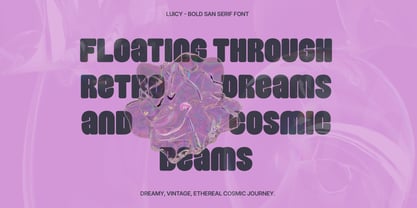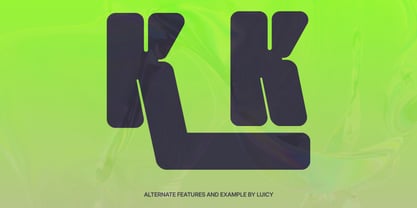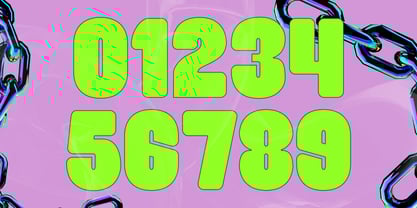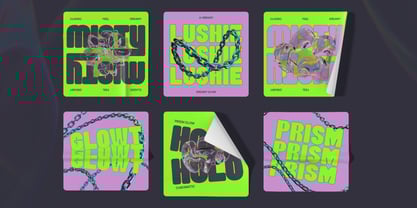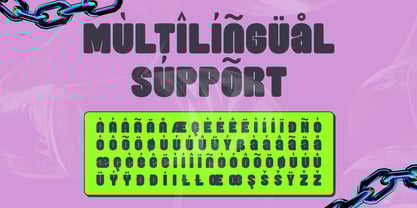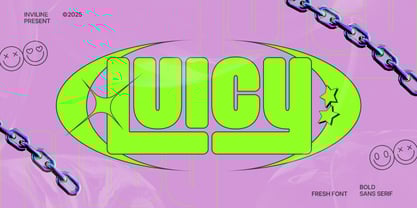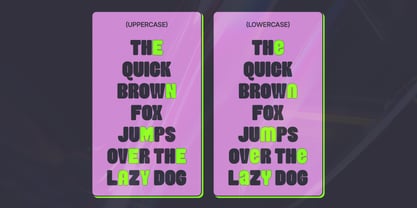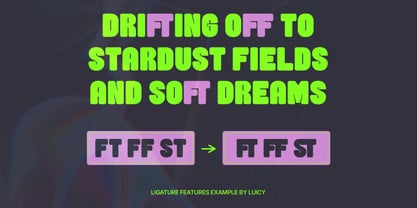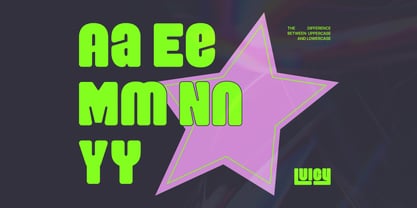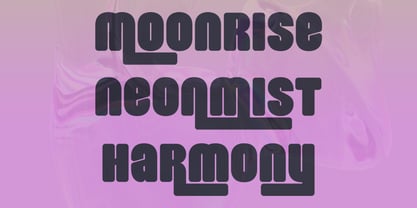
Luicy
by Inviline
The Luicy Font Family was designed by Virgiawan Listanto and published by Inviline. Luicy contains 1 styles.
Luicy is a bold and juicy sans serif font with retro-futuristic energy. Inspired by Y2K, pop-art, and street-style typography, it’s the perfect font to make your designs scream loud and fun. Whether for headlines or branding, Luicy is designed to stand out.
Key Features:
• All-caps bold sans serif style
• Rounded and juicy letterforms
• Strong visual impact for titles & posters
• Clean vector quality with soft curves
Recommended Uses
• Music & streetwear branding
• Social media graphics & memes
• Posters, stickers, and album covers
• Y2K or vaporwave designs
• Bold product packaging
• Merch & apparel typography